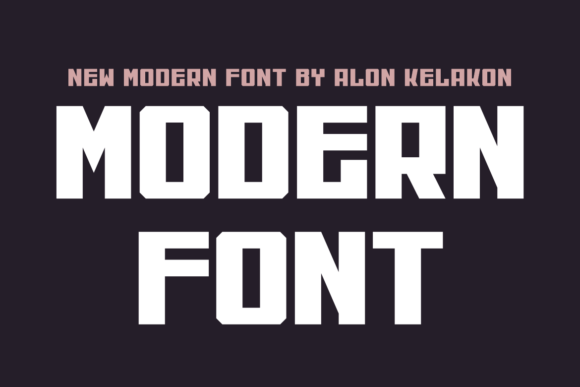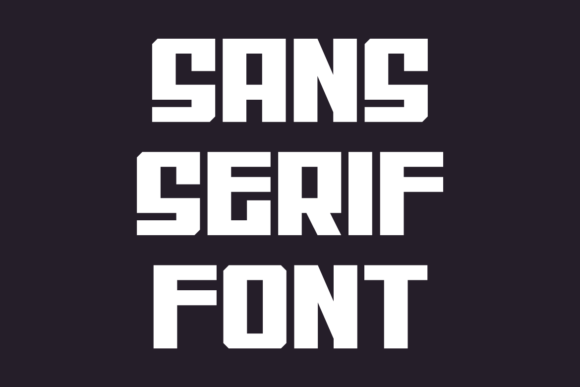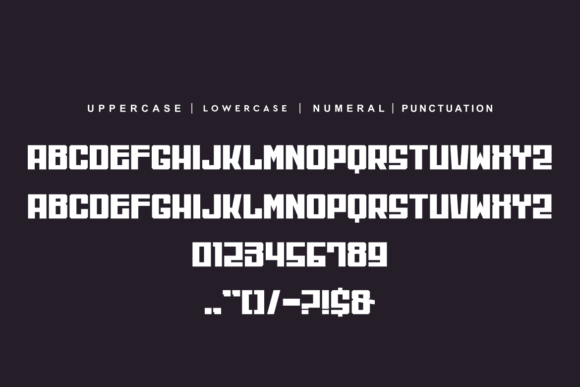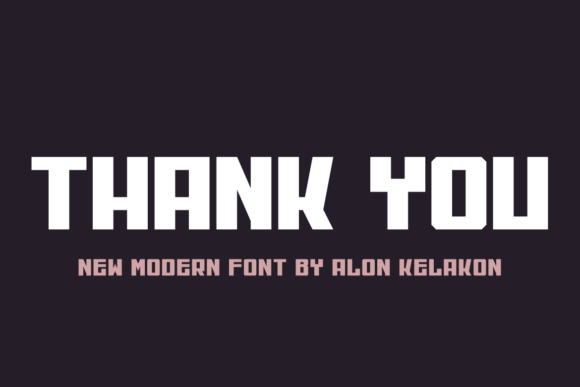
Unleash Your Creativity with Cross Sporten Font
Are you a designer, craftsperson, or creative enthusiast looking for a font that can elevate your projects to new heights? Look no further than Cross Sporten, a bold and masculine sans display font that’s taking the design world by storm. In this article, we’ll dive into the features, benefits, and uses of Cross Sporten, and explore how it can become your go-to font for a wide range of creative endeavors.
The Design Behind Cross Sporten
Cross Sporten is more than just a font – it’s a statement. With its bold, masculine lines and sleek sans-serif design, this font exudes confidence and style. Masterfully crafted to make a lasting impression, Cross Sporten is perfect for designers and crafters who want to add a touch of sophistication and edge to their work.
Whether you’re designing a logo, creating a brand identity, or crafting a one-of-a-kind project, Cross Sporten has the potential to bring your creative ideas to the highest level. Its versatility and flexibility make it an excellent choice for a wide range of applications, from signage and packaging to digital media and advertising.
Key Features of Cross Sporten
- Bold and Masculine Design: Cross Sporten’s bold lines and masculine aesthetic make it perfect for projects that require a strong, confident look.
- Sans-Serif Style: The font’s sleek sans-serif design ensures that your text remains clean and legible, even at smaller sizes.
- High Versatility: Cross Sporten can be used for a wide range of projects, from logos and branding to signage and digital media.
- Easy to Read: Despite its bold design, Cross Sporten remains easy to read, making it perfect for headlines, titles, and short paragraphs of text.
Who Can Benefit from Cross Sporten?
Cross Sporten is an excellent choice for a variety of designers, crafters, and creative professionals, including:
- Graphic Designers: Looking for a bold, eye-catching font to add to their branding and advertising projects.
- Logotype Designers: Seeking a unique and memorable font to create stunning logos and brand identities.
- Crafters and Makers: Wanting to add a touch of personality and style to their handmade projects and products.
- Digital Artists: Searching for a font that can add a bold, graphic element to their digital art and illustrations.
Tips for Using Cross Sporten
To get the most out of Cross Sporten, here are a few tips to keep in mind:
- Use it as a Headline Font: Cross Sporten is perfect for headlines and titles, where its bold design can really make an impact.
- Pair it with a Serif Font: For body text, consider pairing Cross Sporten with a serif font to create a nice contrast and add visual interest.
- Experiment with Colors and Textures: Don’t be afraid to get creative with colors and textures to really make your text stand out.
In conclusion, Cross Sporten is a bold and masculine sans display font that’s sure to become a favorite among designers, crafters, and creative professionals. With its versatile design, easy readability, and bold aesthetic, it’s the perfect choice for a wide range of projects and applications. Whether you’re looking to create a stunning logo, craft a unique brand identity, or simply add a touch of style to your handmade projects, Cross Sporten is the perfect tool for the job.